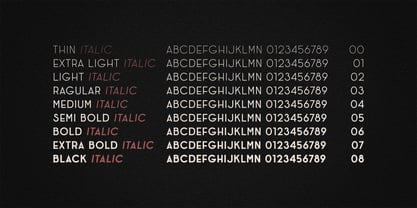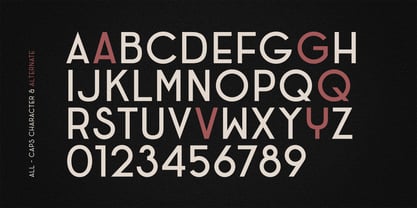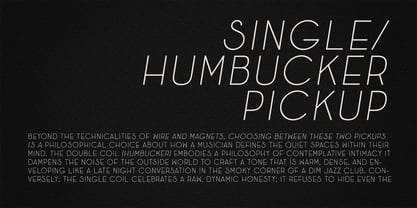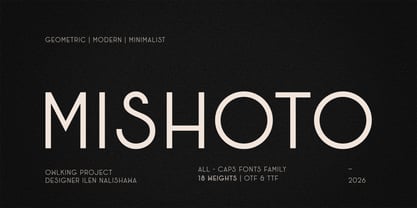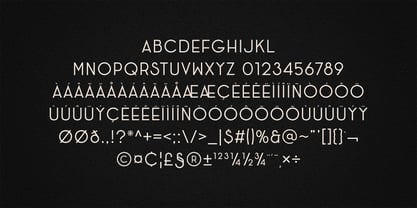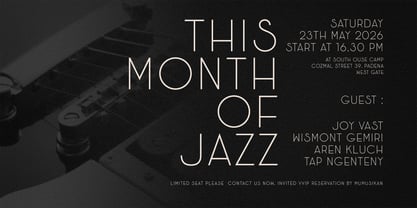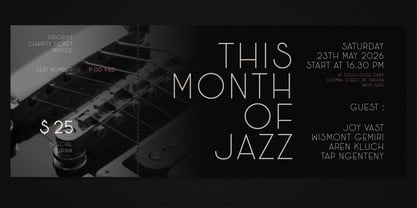
Mishoto
MISHOTO ALL-CAPS
Step into a world where classic heritage meets modern sophistication.
MISHOTO is an exquisite all-caps sans-serif font family thoughtfully designed for the modern creator. Inspired by the bold, geometric forms of classic Art Deco architecture and typography, MISHOTO embraces its historical roots while making a confident modern debut.
By refining the traditional shapes of the past with clean lines and minimalist aesthetics, MISHOTO delivers a look that is both nostalgic and forward looking. Its sleek anatomy and striking proportions make it highly versatile, commanding attention whether used for high-end editorial layouts or futuristic digital designs.
With a massive family of 18 weights ranging from delicate Thin to impactful Black, along with their matching italics, MISHOTO provides absolute typographic control. It also features beautiful alternate characters for key letters (like A, G, Q, V, Y) allowing you to customize your logotypes and headlines effortlessly.